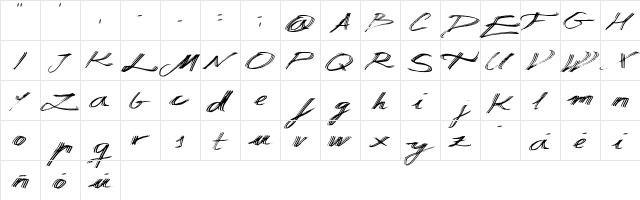
Manuscripta Regular
Design Context for Manuscripta Typeface
Manuscripta brings a calligraphic fluidity to the page — its connecting strokes and expressive curves give it an unmistakably human quality.
Font Pairing: Combine Manuscripta with a simple geometric sans for maximum contrast — the tension between flowing curves and clean structure is a classic typographic pairing.
Pro Tip: Pair Manuscripta with a clean sans-serif for supporting text. The contrast between fluid script and geometric structure creates an elegant typographic hierarchy.